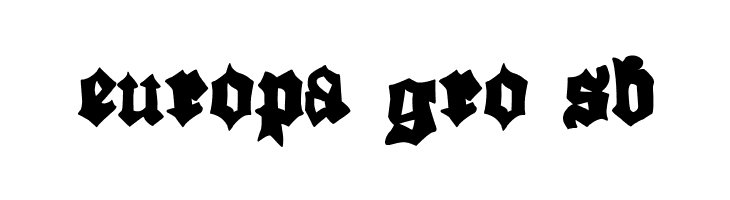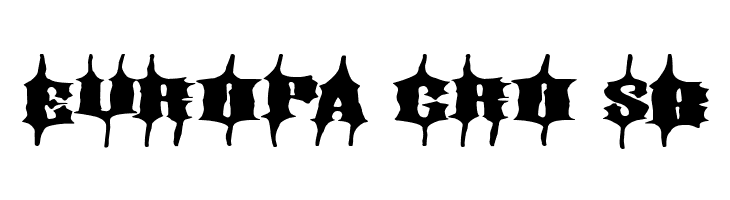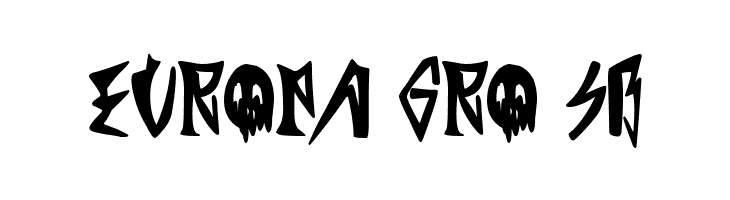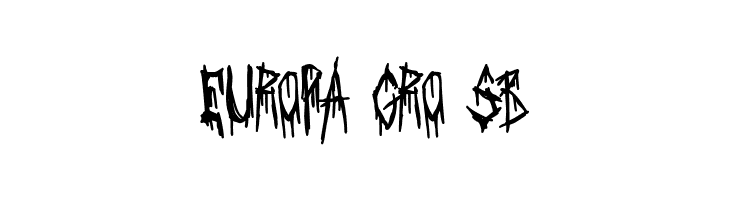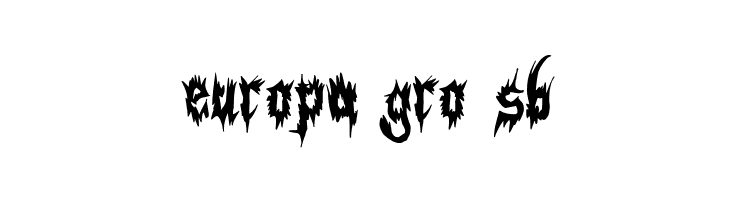
A bold, gothic-inspired blackletter display font with sharp, angular forms.
Distressed, horror-themed display font with splatter and drip effects.
Bold, jagged display font with flame-like edges and dramatic style.
A bold, spiked, gothic decorative font with extreme visual impact.
A bold, decorative font of Santa-hat-wearing skulls for festive, edgy designs.
Aggressive, heavy metal-inspired display font with sharp, irregular forms.
A bold, dripping blackletter display font with a horror vibe.
Distressed, jagged, hand-drawn display font with chaotic energy.
A bold, gothic-inspired display font with sharp, ornamental features.
A spiky, distressed display font with an aggressive, chaotic style.